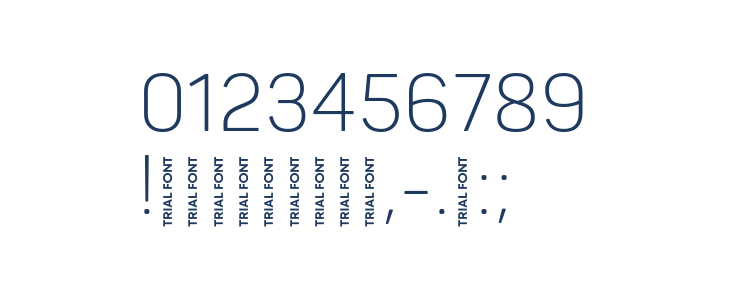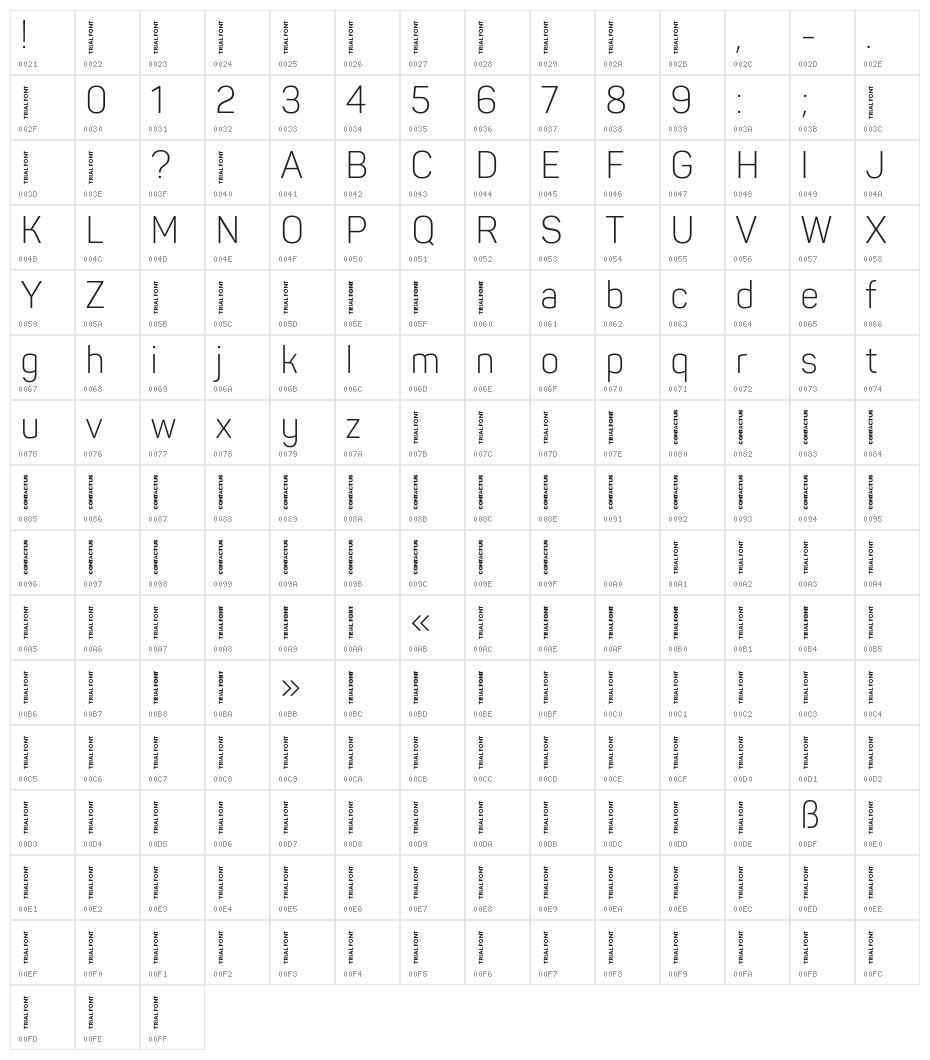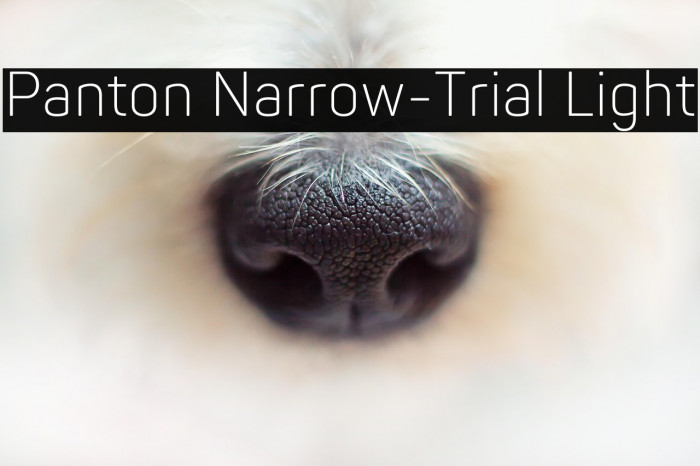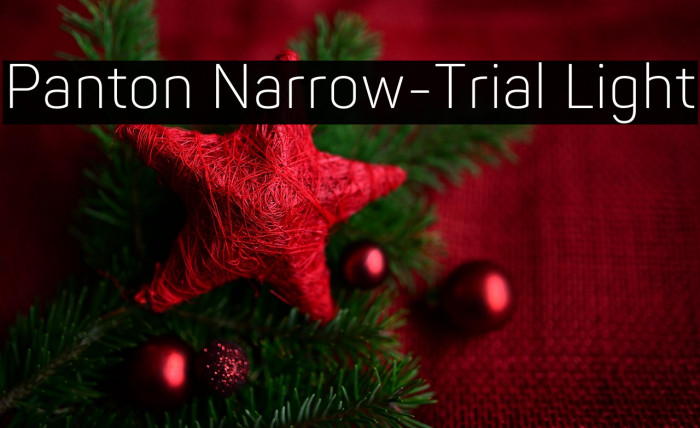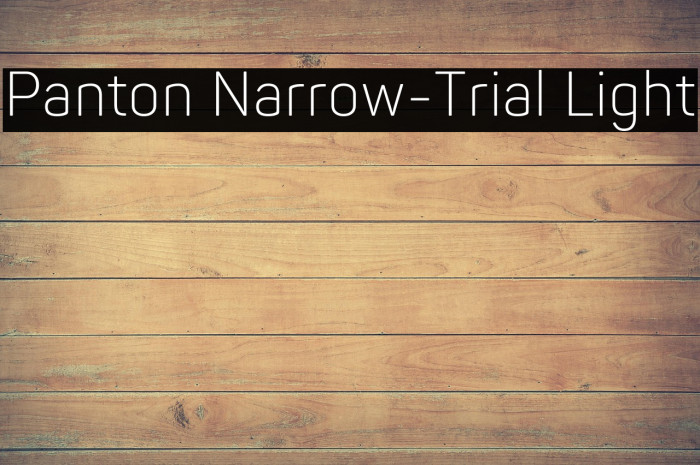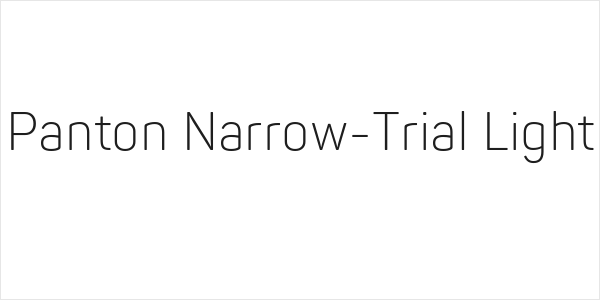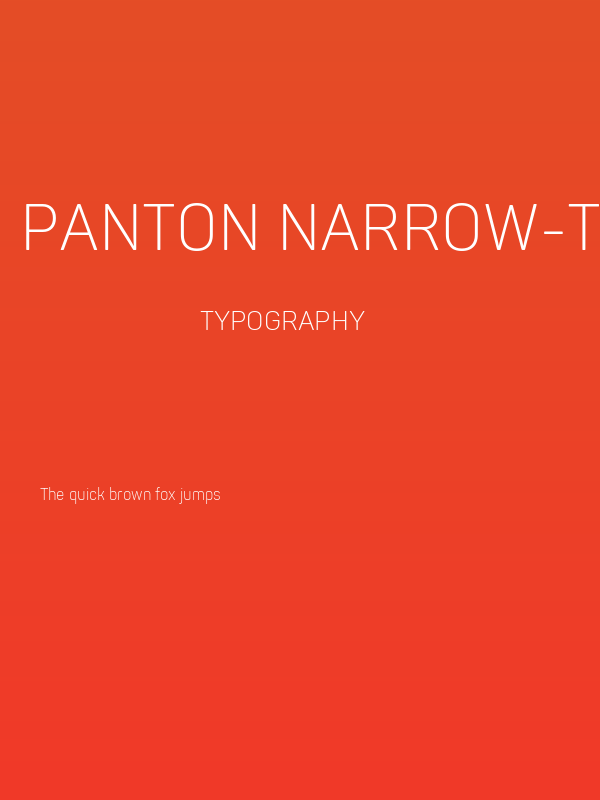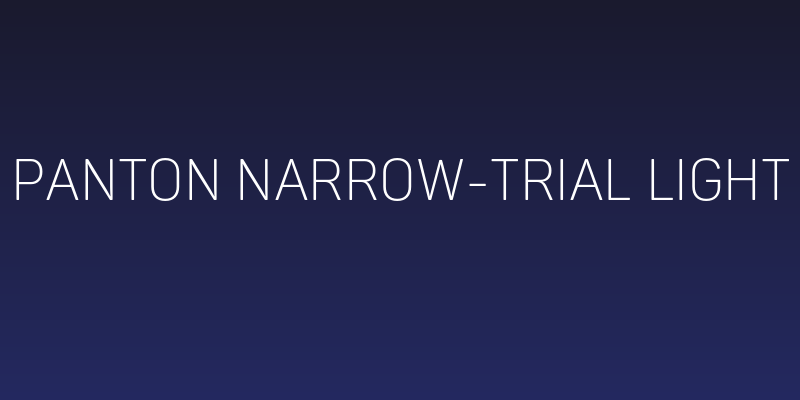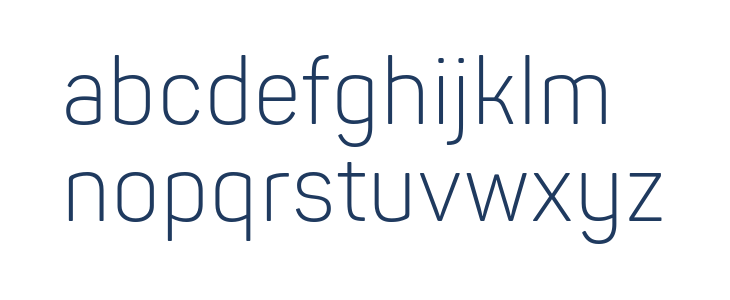
Panton Narrow-Trial Light Font
Panton Narrow-Trial Light Description
This font features a clean and modern sans-serif design with a narrow structure, making it ideal for contemporary projects. The characters are evenly spaced with a light weight, providing a sleek and elegant appearance. The font maintains a consistent stroke width, contributing to its low contrast and minimalist style. Its geometric shapes and smooth curves enhance readability while maintaining a stylish aesthetic. Suitable for both digital and print media, this font offers versatility across various applications.
| Proposed Projects | Ideal for branding, web design, editorial layouts, and minimalist posters. |